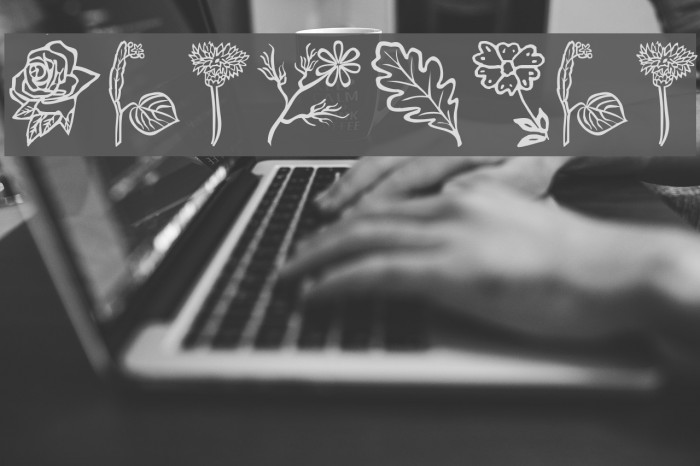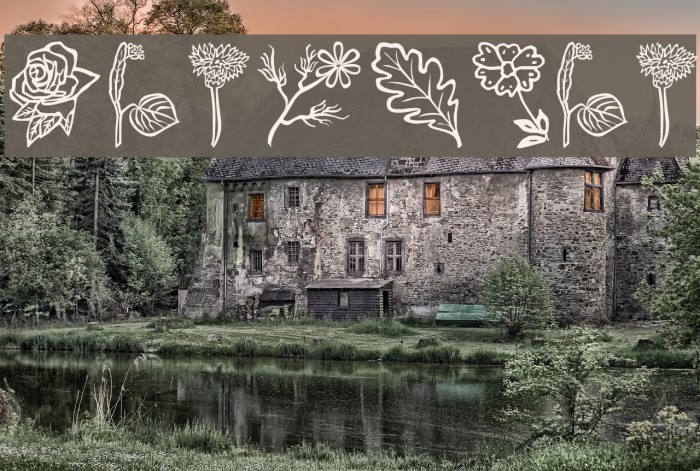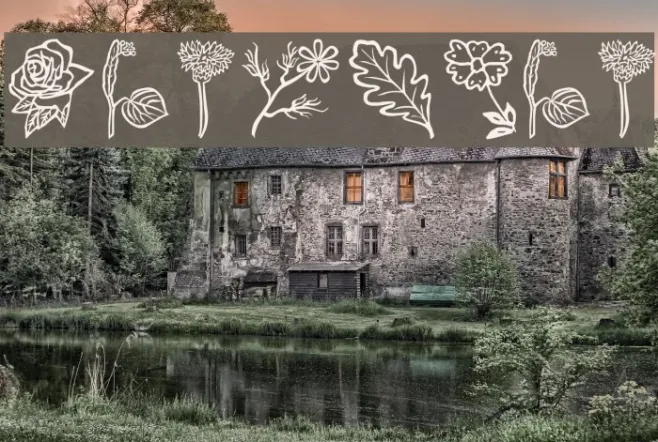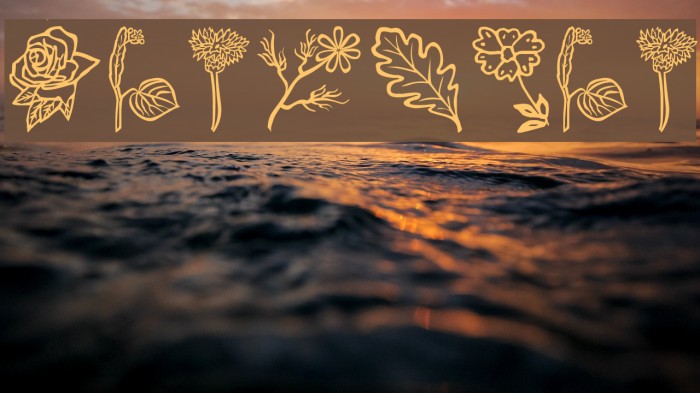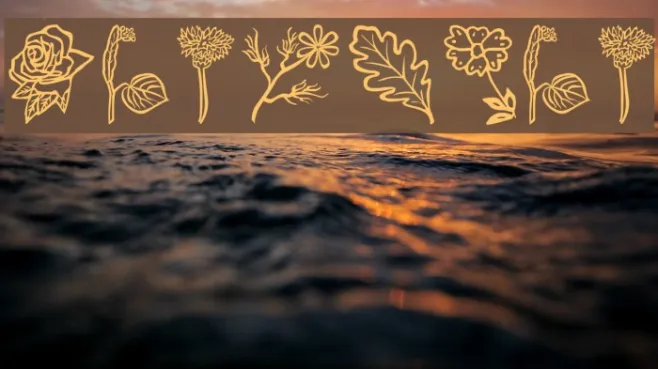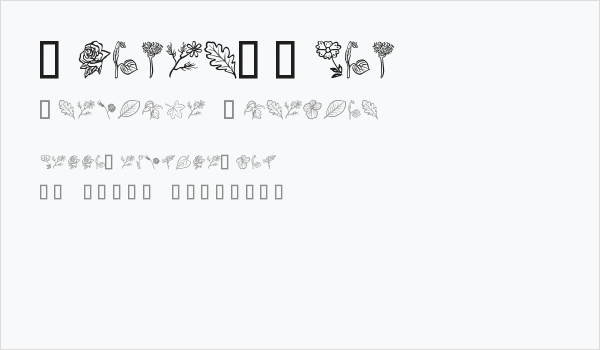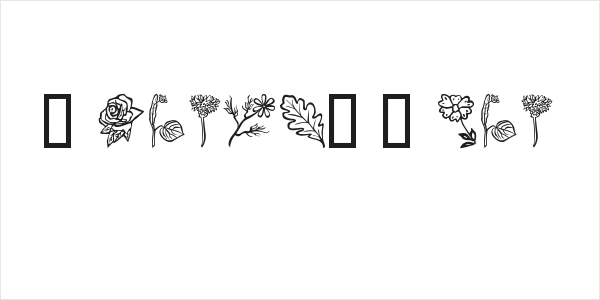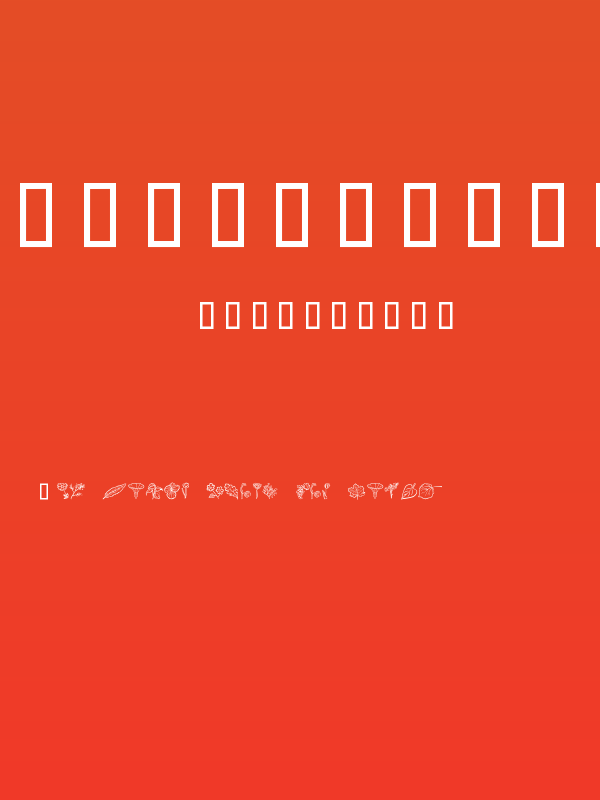
Flower-Show Font
Flower-Show Description
A decorative dingbat font featuring detailed black-and-white illustrations of various flowers and leaves, each glyph representing a different botanical element with fine linework and naturalistic shapes.
| Overall Style | Decorative, Botanical, Hand-drawn |
| Use Case | Decorative elements, Borders, Themed graphics |
| Proposed Projects | Nature-themed invitations, botanical branding, scrapbooking, decorative borders, eco-friendly packaging. |